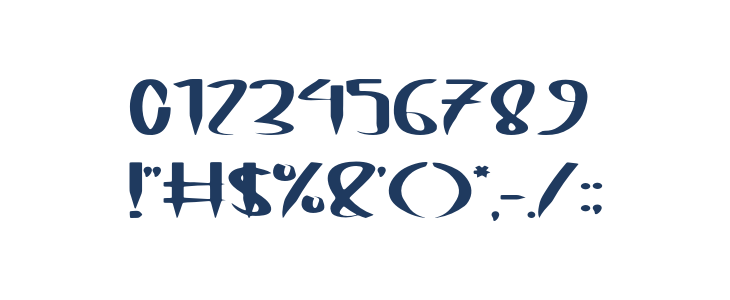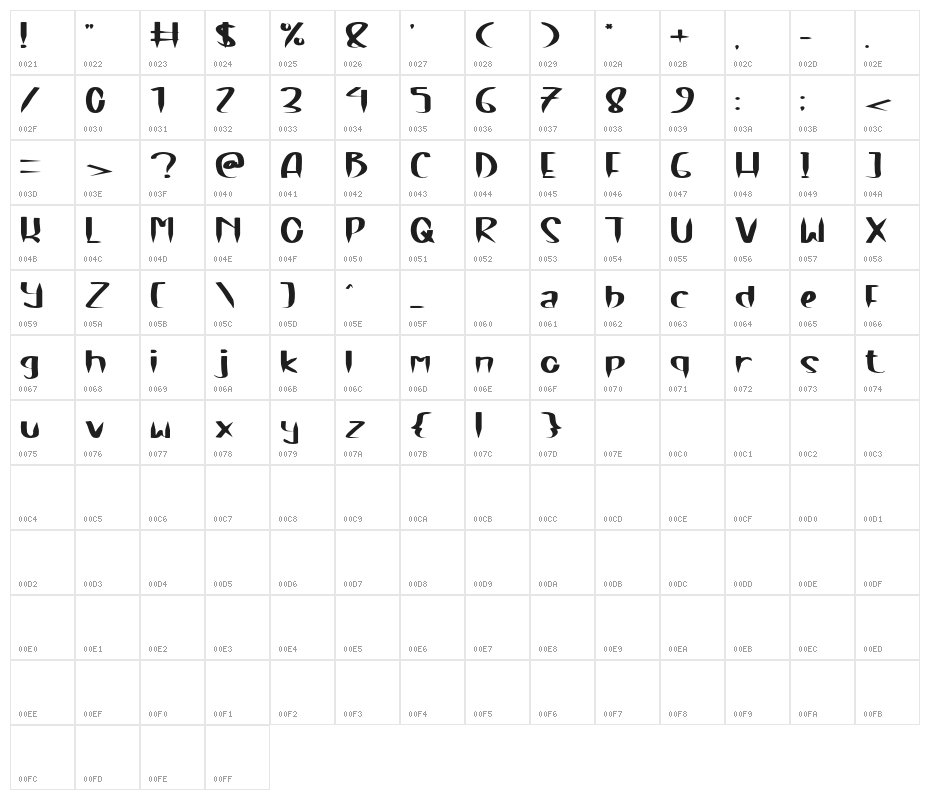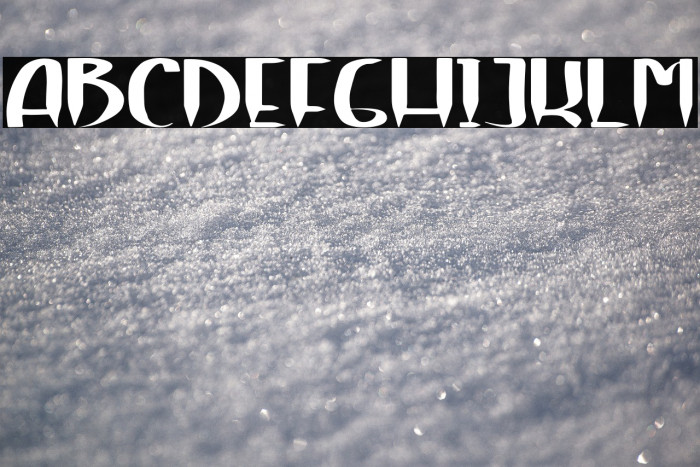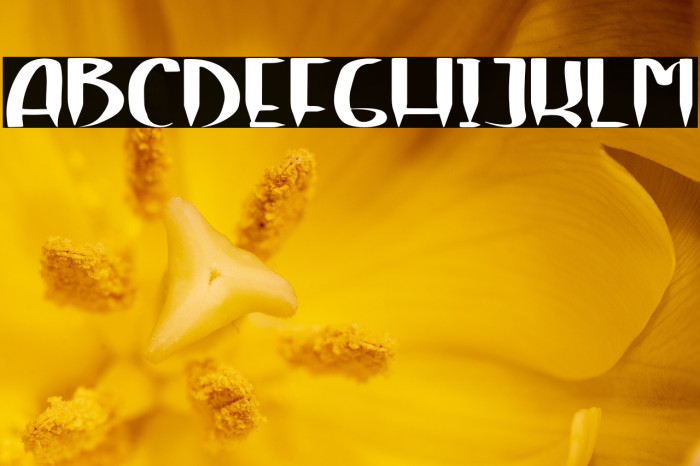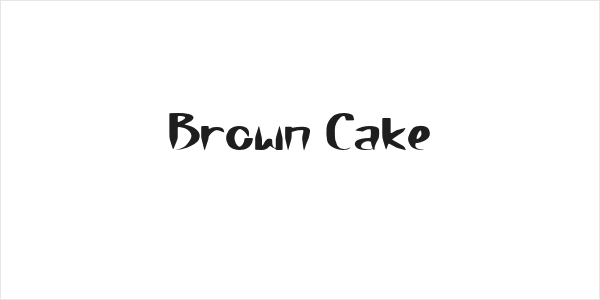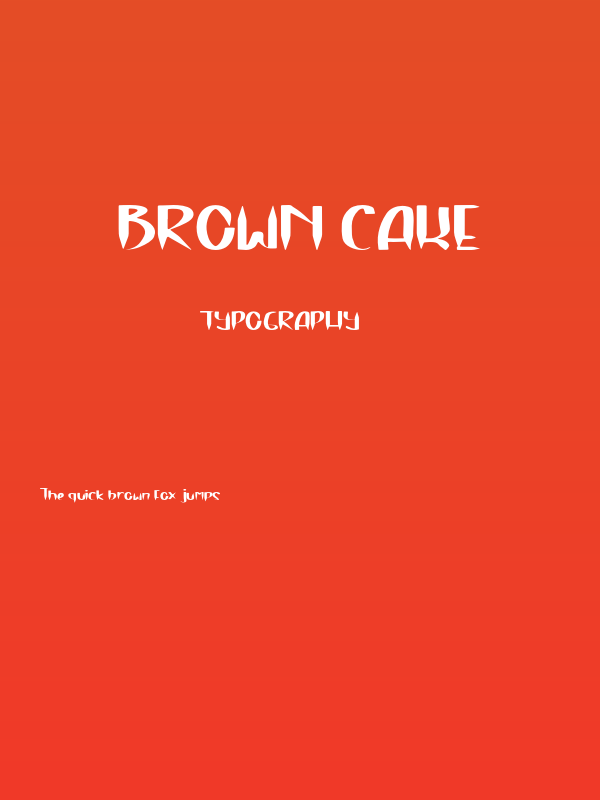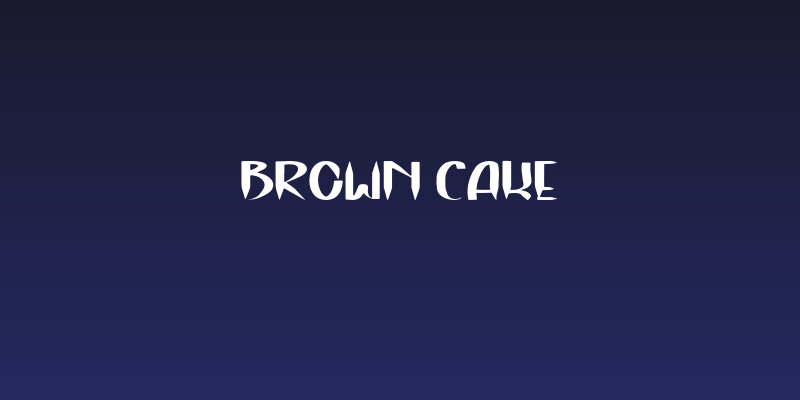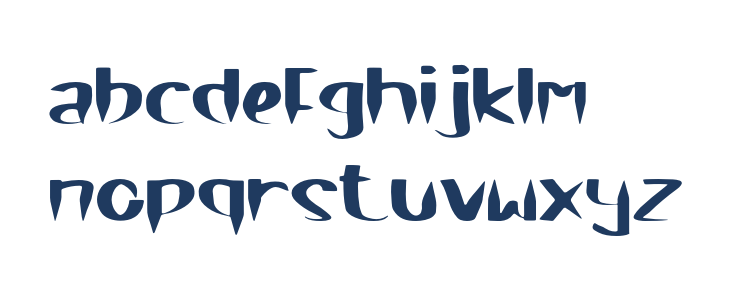
Brown Cake Font
Brown Cake Description
This font features a bold and dynamic style with sharp, angular edges and a slightly aggressive appearance. The characters have a unique, artistic flair, combining elements of both modern and traditional design. The uppercase letters are particularly striking, with exaggerated curves and pointed terminals that give them a distinctive look. The lowercase letters maintain a consistent style, offering a cohesive appearance across the typeface. Numbers and special characters are designed with the same boldness, ensuring uniformity throughout. This font is well-suited for projects that require a strong visual impact.
| Proposed Projects | Ideal for branding, posters, album covers, and any design requiring a bold statement. |